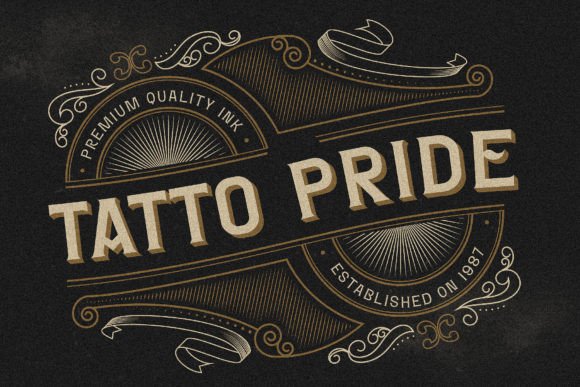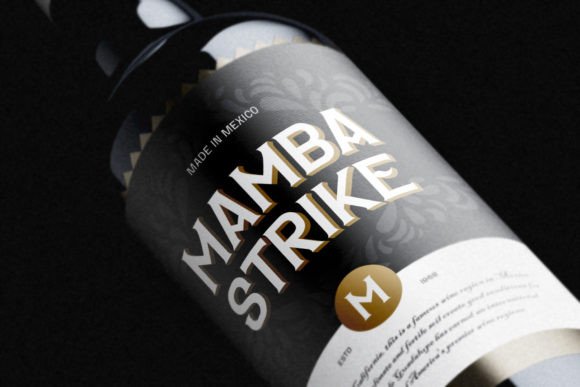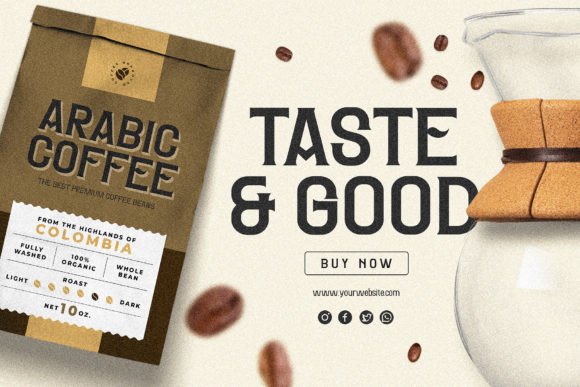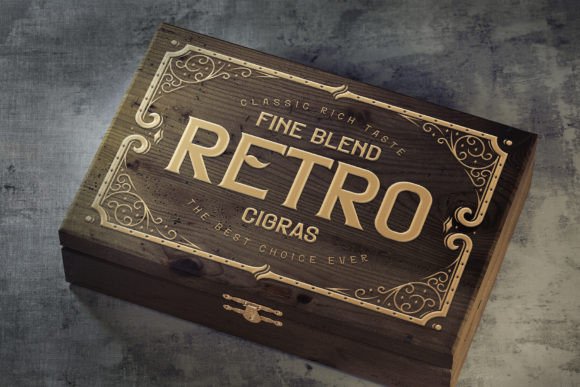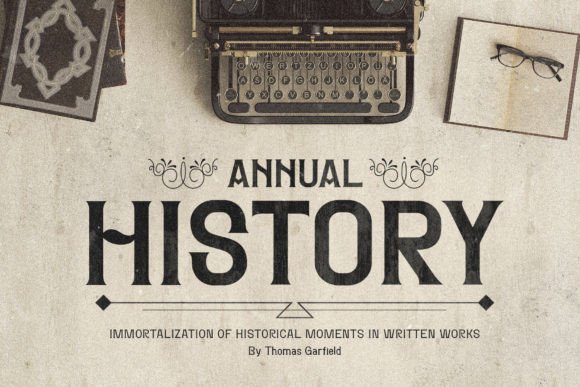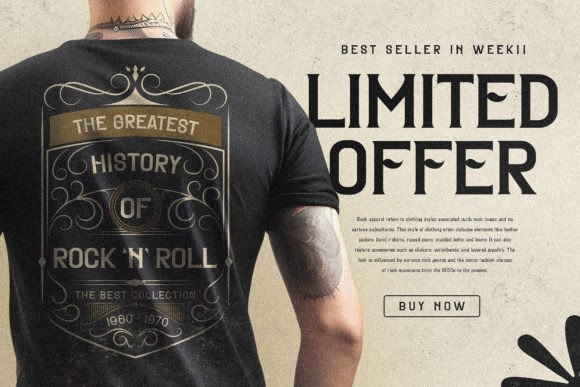
Revive the Timeless Elegance of the 1900s with Giona Layered Typeface
Step into the world of classic typography and relive the nostalgia of the 1900s with Giona Layered Typeface. This exquisite font is a masterful revival of the era’s iconic typography, infused with a bold, classic touch that instantly transports you to a bygone era. Giona is more than just a font – it’s an experience that adds a dash of vintage charm to any design, making it an ideal choice for crafters and designers seeking to create unique and captivating visuals.
The Essence of Vintage Elegance
Giona’s design is deeply rooted in the classic typography of the 1900s, with a distinctive bold ring that sets it apart from other fonts. This characteristic feature gives Giona its unique charm, making it perfect for designs that require a touch of sophistication and elegance. Whether you’re working on a logo, brochure, or product label, Giona’s vintage flair is sure to captivate your audience and leave a lasting impression.
Unleash Your Creativity with Giona’s Versatility
One of the standout features of Giona Layered Typeface is its incredible versatility. This font is not limited to a specific design or industry; instead, it can be seamlessly integrated into a wide range of projects. From drink bottles and coffee shops to fashion accessories, book covers, and product labels, Giona’s adaptability knows no bounds. Whether you’re a seasoned designer or a crafty entrepreneur, Giona provides the perfect canvas for your creativity to flourish.
Key Features of Giona Layered Typeface
• Uppercase and Lowercase Letters: Giona boasts a comprehensive set of uppercase and lowercase letters, ensuring that your design looks polished and refined.
• Numerals and Punctuations: The font includes a full range of numerals and punctuations, providing you with everything you need to create stunning text-based designs.
• Multilingual Support: Giona supports multiple languages, making it an excellent choice for global brands and designers working with international clients.
• Layered Design: The font’s layered design allows for effortless customization, enabling you to experiment with different styles and effects.
Why Choose Giona for Your Design?
So, what sets Giona apart from other fonts? Here are just a few reasons why designers and crafters are falling in love with this exceptional typeface:
• Unique and Refined Demeanor: Giona’s classic design and bold ring give it a distinctive personality that elevates any design.
• Vintage Charm: The font’s nostalgic appeal adds a touch of warmth and character to your designs, making them more engaging and memorable.
• Elegance and Exclusivity: Giona’s sophisticated design makes it perfect for high-end brands and luxury products, conveying a sense of refinement and exclusivity.
Tips for Using Giona Layered Typeface
To get the most out of Giona, here are some expert tips:
• Pair with Modern Fonts: Combine Giona with modern fonts for a striking contrast that adds visual interest to your design.
• Experiment with Sizes: Giona’s charm is amplified on larger displays or when used for punchy short words – don’t be afraid to experiment with different sizes.
• Play with Colors: The font’s classic design looks stunning in bold colors – try pairing it with rich jewel tones or metallic finishes.
Giona Layered Typeface is more than just a font – it’s a gateway to a world of timeless elegance and sophistication. With its unique blend of classic charm and modern versatility, Giona is the perfect choice for designers and crafters seeking to create captivating visuals that stand out from the crowd. So why wait? Immerse yourself in the world of Giona and discover a new dimension of design possibilities.